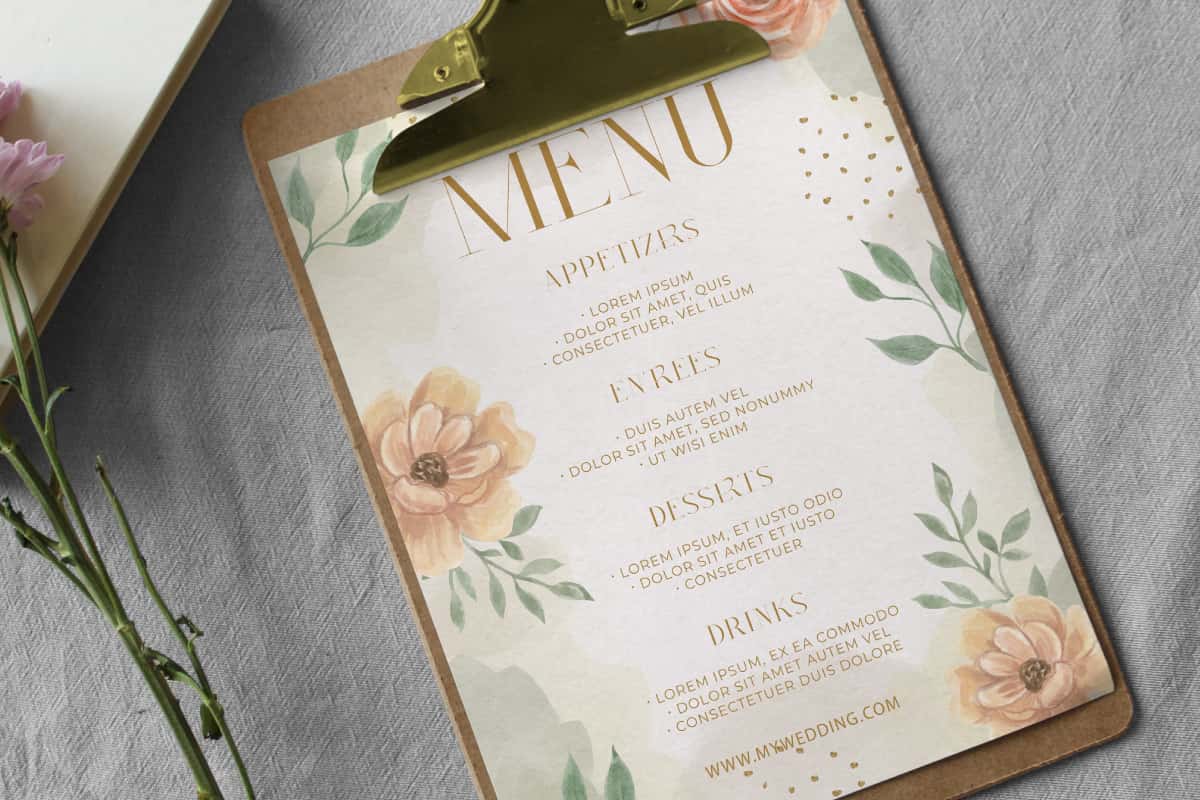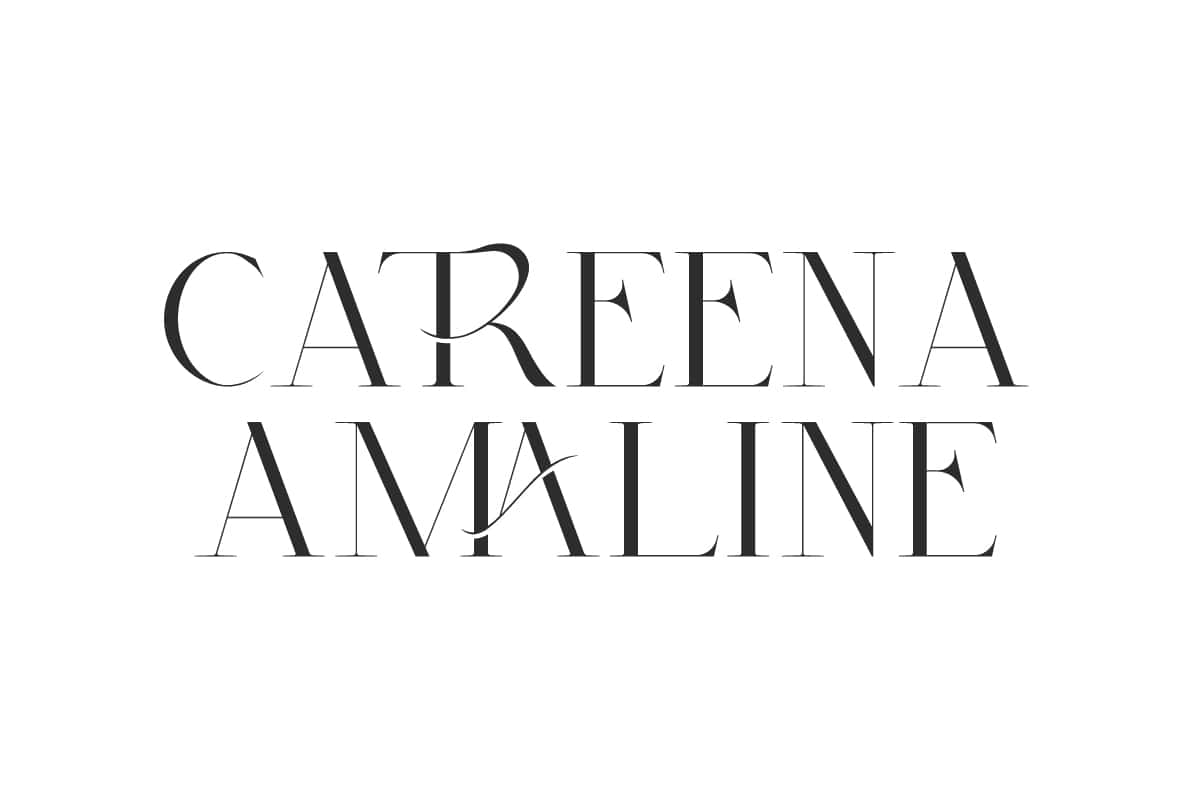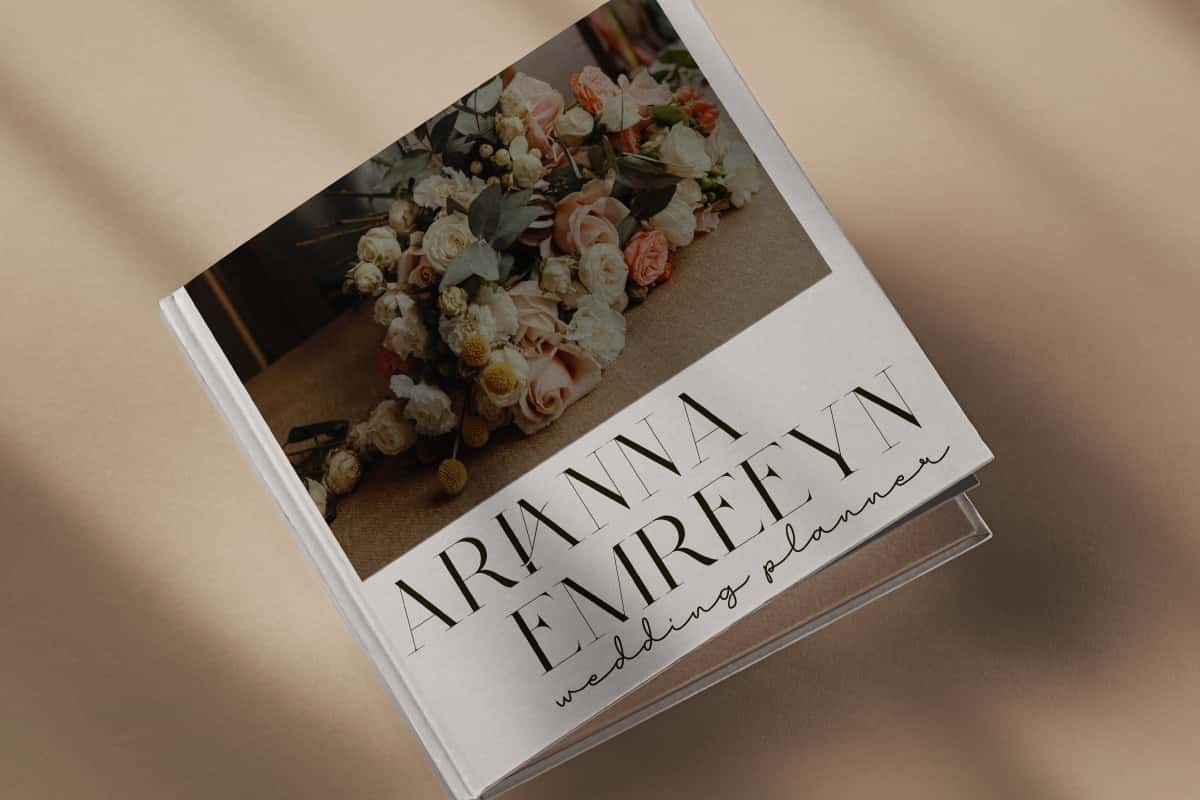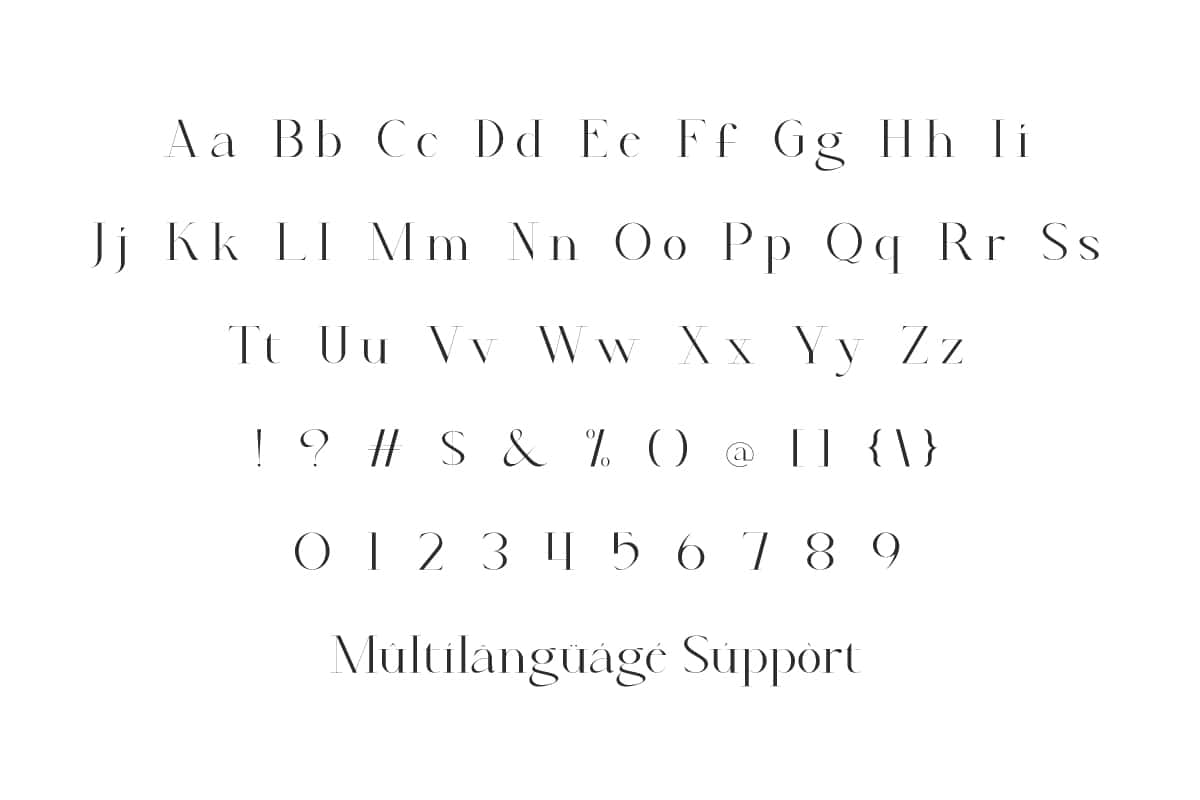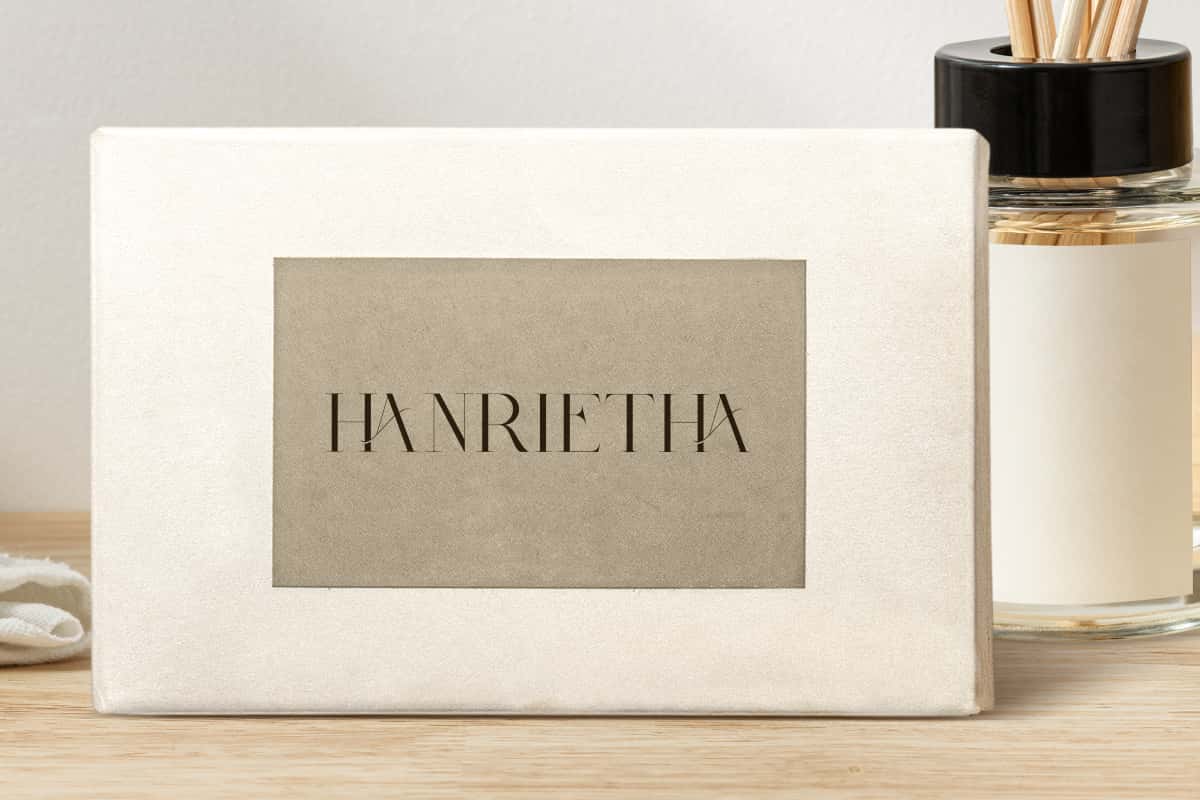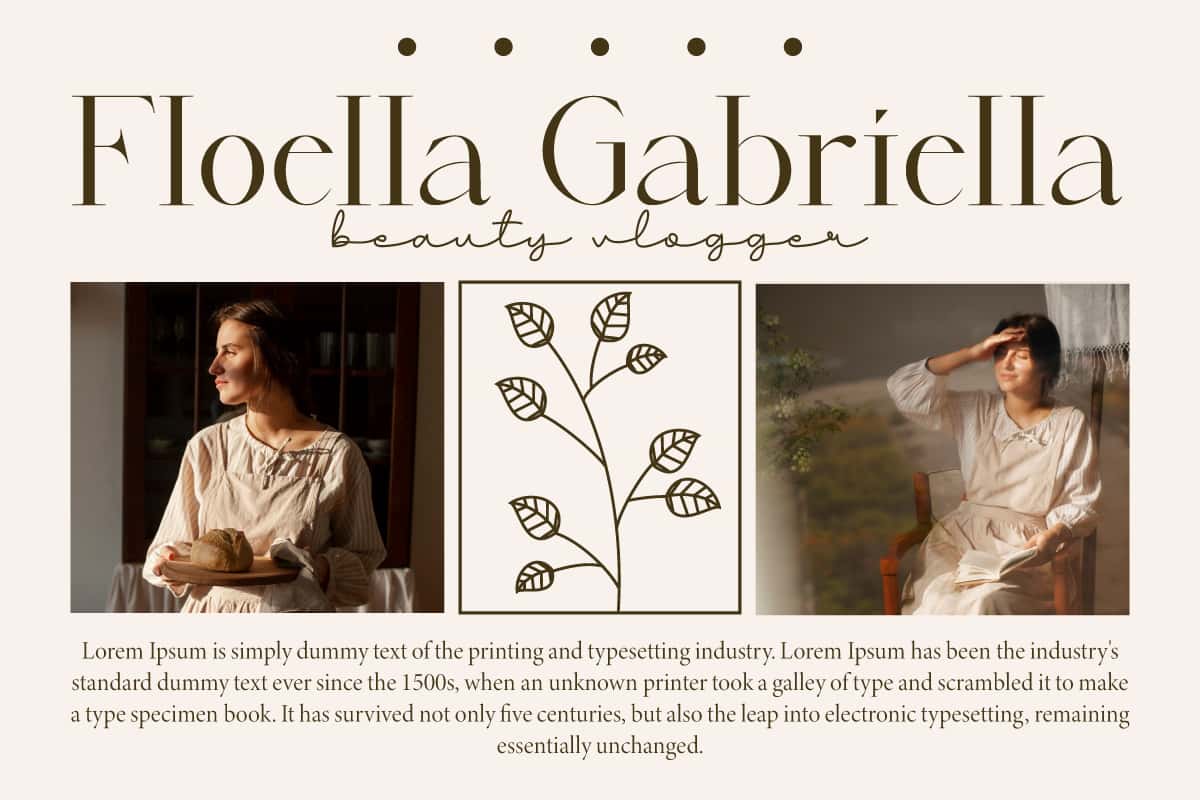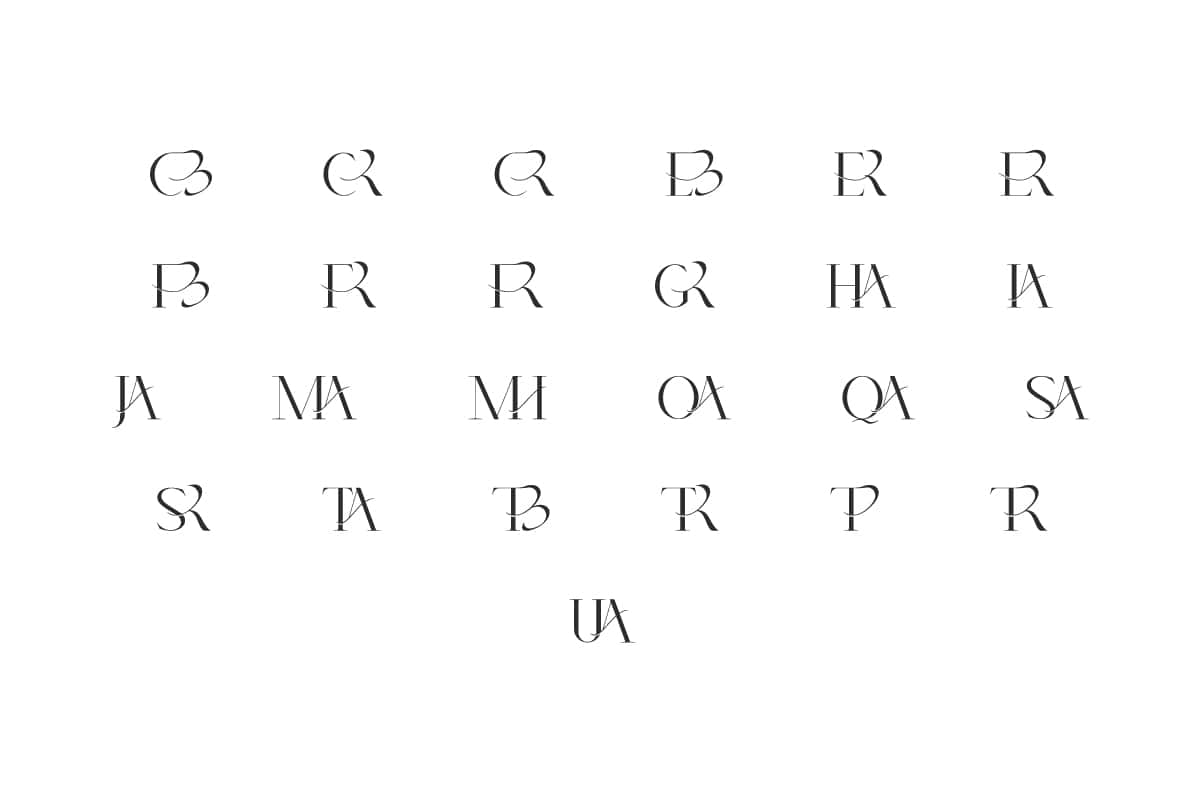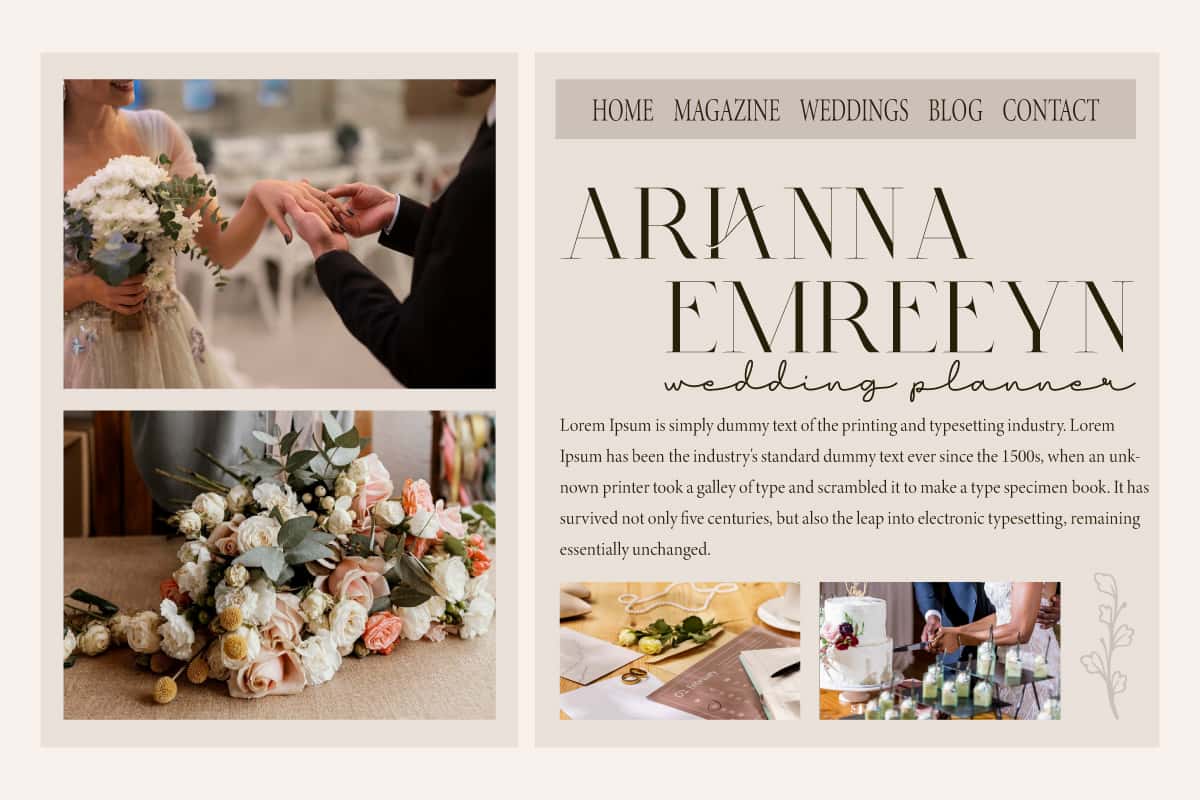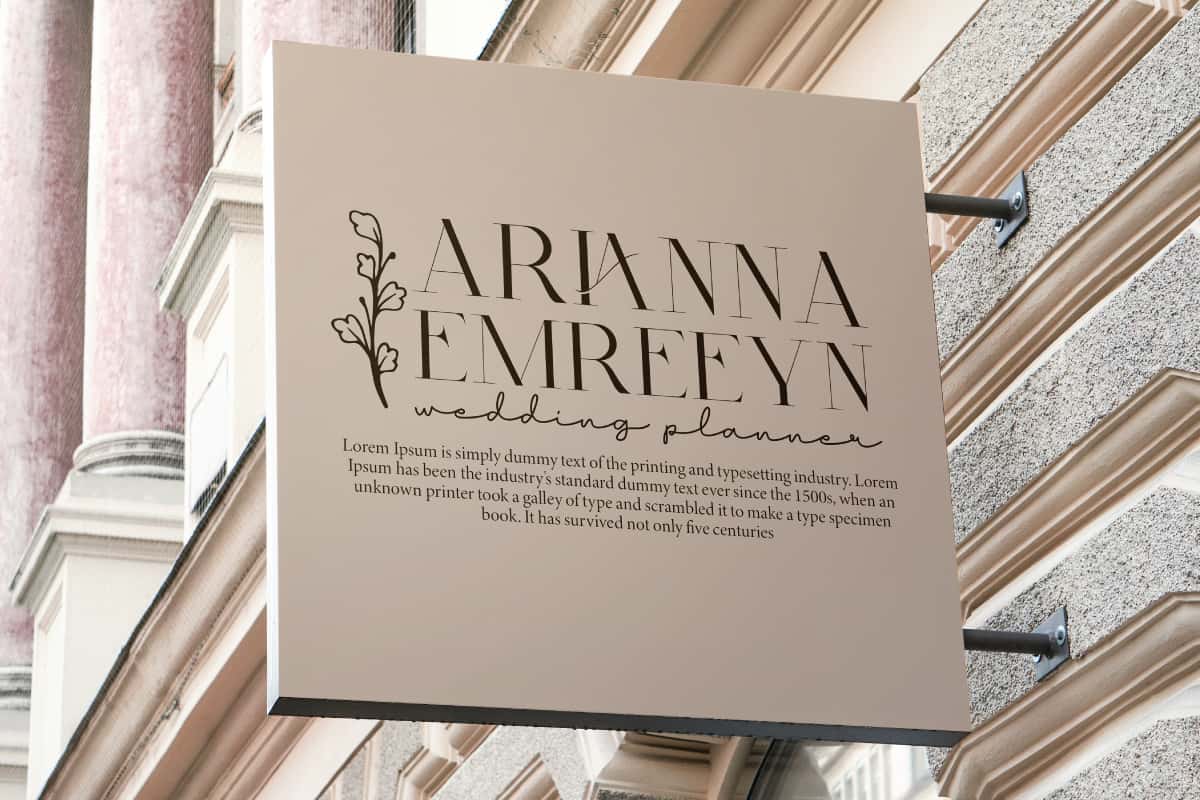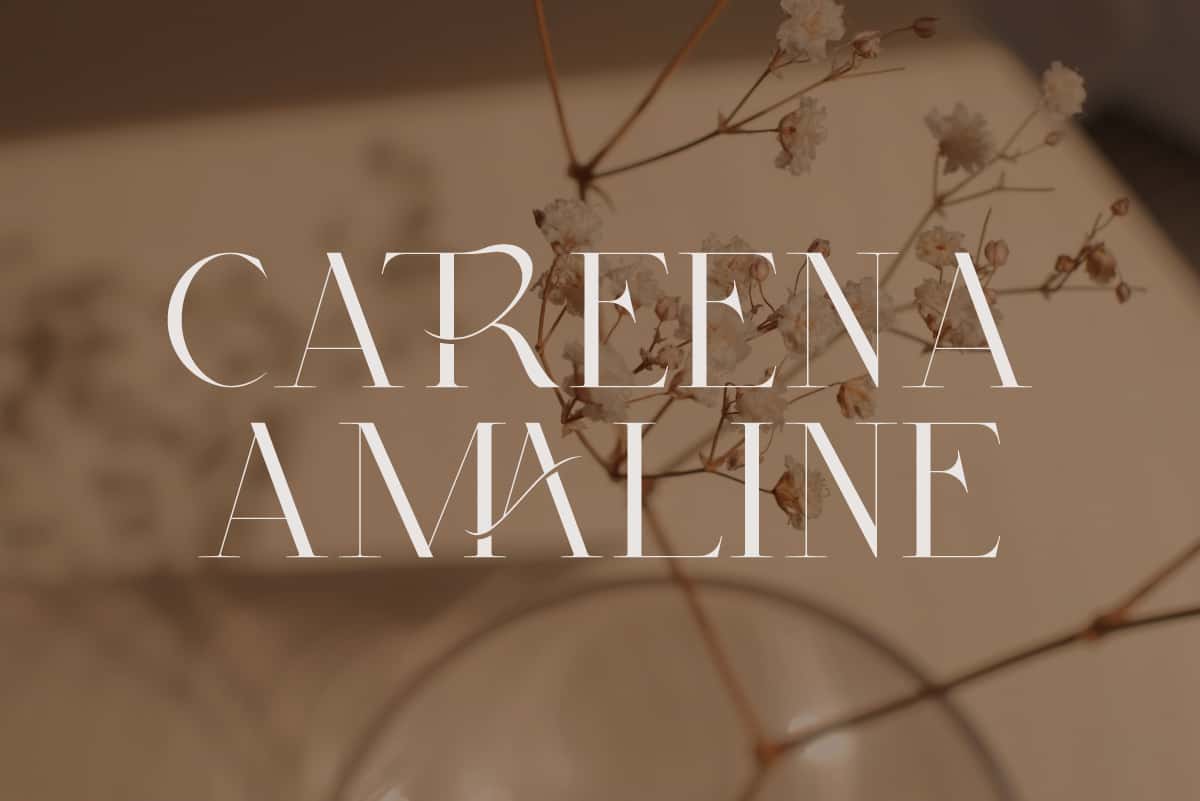
Catreena Amaline Font is a sophisticated serif display font that radiates luxury, immediately enhancing any design. Perfect for advertising, branding, etc.
Catreena Amaline Font is a sleek, sophisticated, and stylish serif display font. Its elegant character design offers a clean, highly legible impression. It would be very suitable to be used in blog titles, book covers, brand logo, headers, headline, leaflet, logo, menu, mockup, poster, quotes, title, website, and more.
Catreena Amaline Font includes full set of Uppercase and Lowercase Basic Characters, Numbers, Punctuation, Symbols and Ligature. With its classy characteristics, this font makes any design look magnificent. Elevate your project to be even more stunning by integrating this font. It is a great choice for advertising, beauty clinic, boutique, branding, cafe, craft, events, fashion, jewelry, photography, skincare, spa salon, weddings, etc.